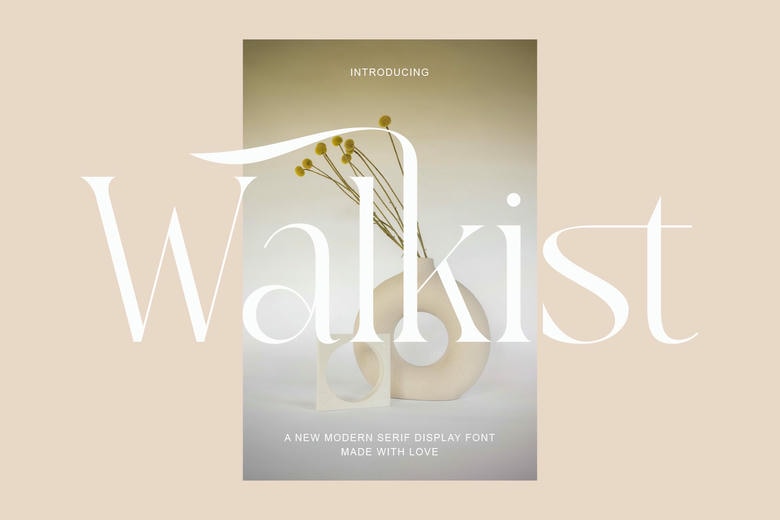
Walkist Font
Walkist is a modern serif display font that combines slim shapes with bold, sweeping swashes. Its high-contrast letters, long curved ascenders, and open spaces give it a handcrafted look.
Its smooth flow and unique style make it a great choice for luxury branding, wellness packaging, custom wedding invitations, and stylish social media headers.
Walkist brings a polished and natural feel to your designs, helping your message come across as calm and stylish.
Walkist Serif Font